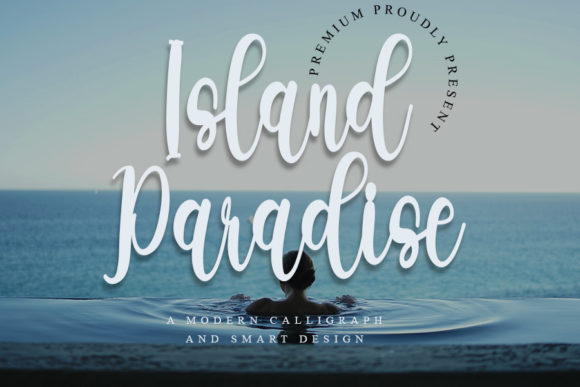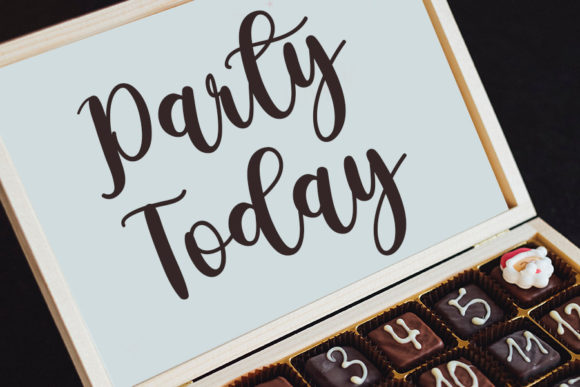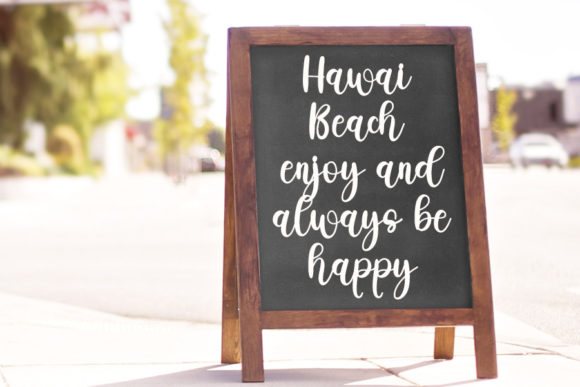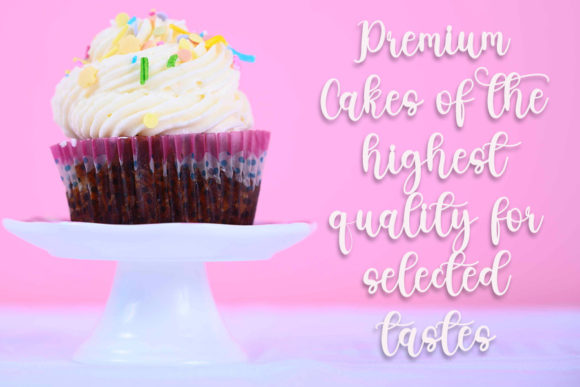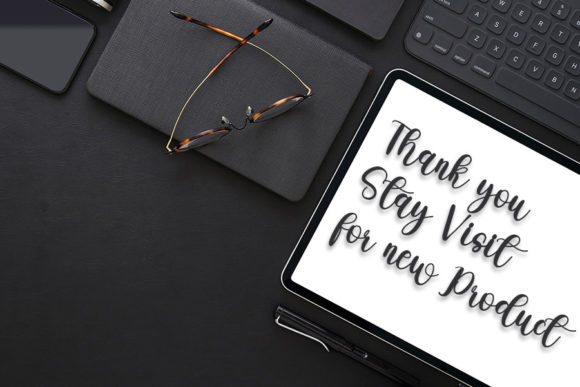
About Island Paradise Font
Island ParadiseĀ is a chic, refined script font that emanates sophistication and elegance. Its stylish alternates and ligatures make this font the perfect match for any project.